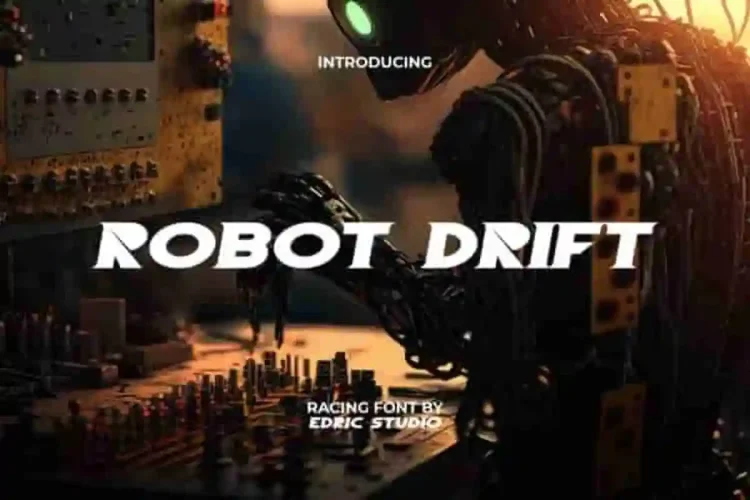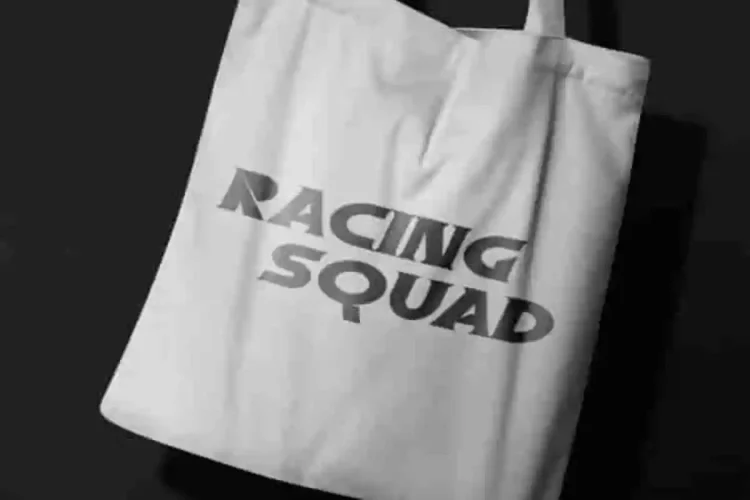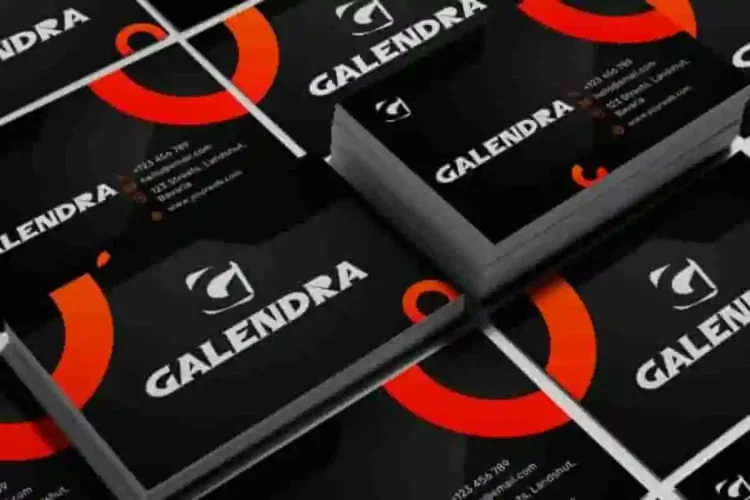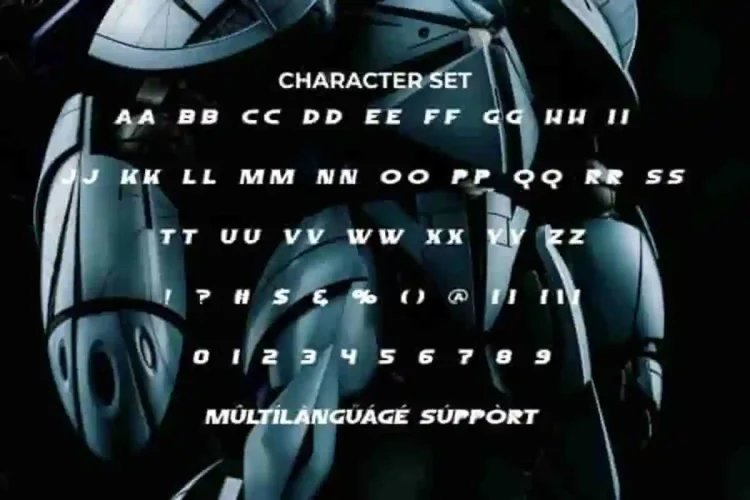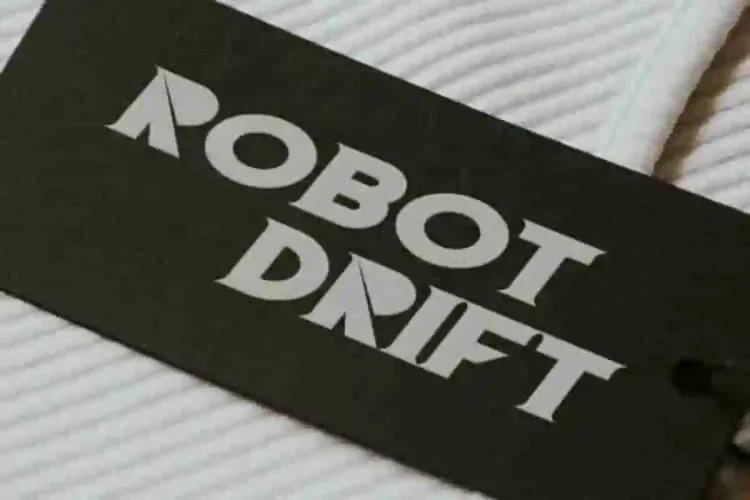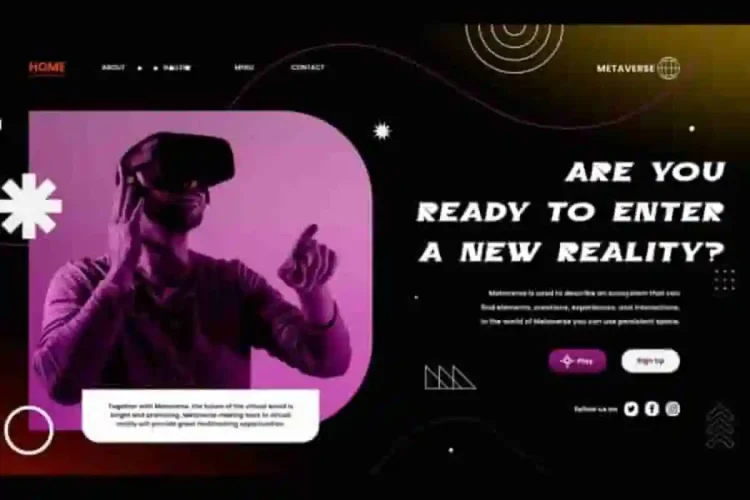
Robot Drift Modern Font is a bold futuristic racing display font with a distinctive shape making it perfect for contemporary look. Perfect for designers who want to create eye-catching titles, logos, or branding that demands attention.
Robot Drift Modern Display Font Its heavy proportions and sharp details make every letter stand out, giving your projects a strong rhythm and a striking contemporary look. This will help you feel the energy contained within. Robot Drift Font comes with ALL CAPS uppercase and lowercase letters, numbers, punctuation, and symbols, offering a complete set of tools for your creative vision. Add this font to your favorite creative ideas and watch how it works!
Robot Drift Font a playful typeface with unique decoration in each character. Combine different characters for a bespoke, handcrafted feel. It’s tested to work well in the Adobe Apps (Illustrator, Adobe InDesign, Adobe Photoshop) even work on Microsoft Word. Thanks to PUA encoding, every glyph and alternate character is accessible for custom creative control.